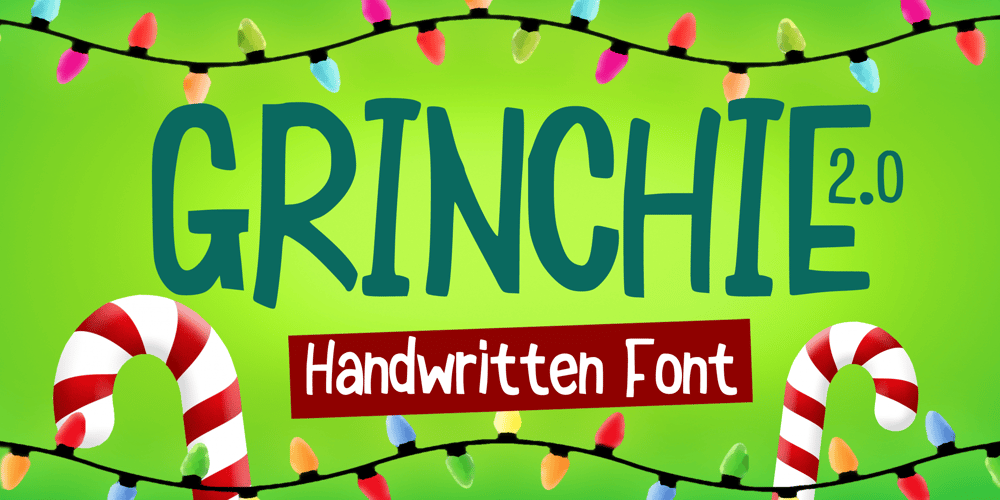
Grinchie 2.0 Font Family was designed by Gabriel Valentinus and published by Mvmet. Grinchie 2.0 contains 1 styles and family package options. Grinchie 2.0 is your perfect Christmas font and now comes with new version which include English, French, German, Italian, and Spanish. You can use it for anything ranging from t-shirts, kids’ book designs, and greeting cards to stickers and posters, or anything that needs a casual touch. Fall in love with its incredibly versatile style and use it to create lovely designs!